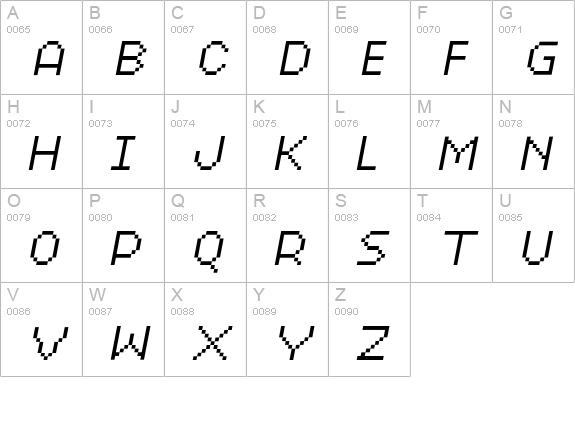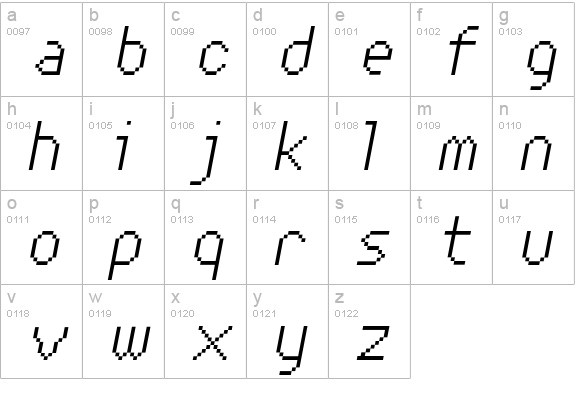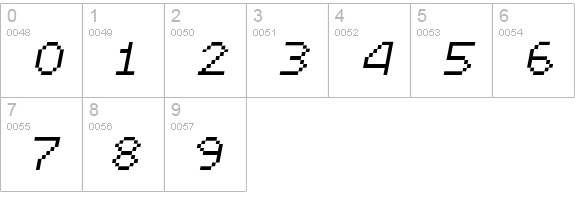
XERXES-ELEVENOBLIQUE Font Details
XERXES-ELEVENOBLIQUE font is a captivating and modern typeface that exudes sophistication and elegance. Its sleek lines and unique angles make it a versatile choice for various design projects, from branding to editorial design. The font's sharp edges and bold presence give any text a contemporary and stylish look. What sets XERXES-ELEVENOBLIQUE font apart is its seamless blend of traditional elegance with a touch of avant-garde flair. This fusion creates a visually striking aesthetic that is sure to capture attention and leave a lasting impression. Best of all, XERXES-ELEVENOBLIQUE font is available for free download at FontsMarket.com. So whether you're a professional designer looking to elevate your projects or a hobbyist seeking to add a touch of sophistication to your creations, this font is the perfect choice. Download XERXES-ELEVENOBLIQUE font today and let your creativity soar with this sleek and stylish typeface.